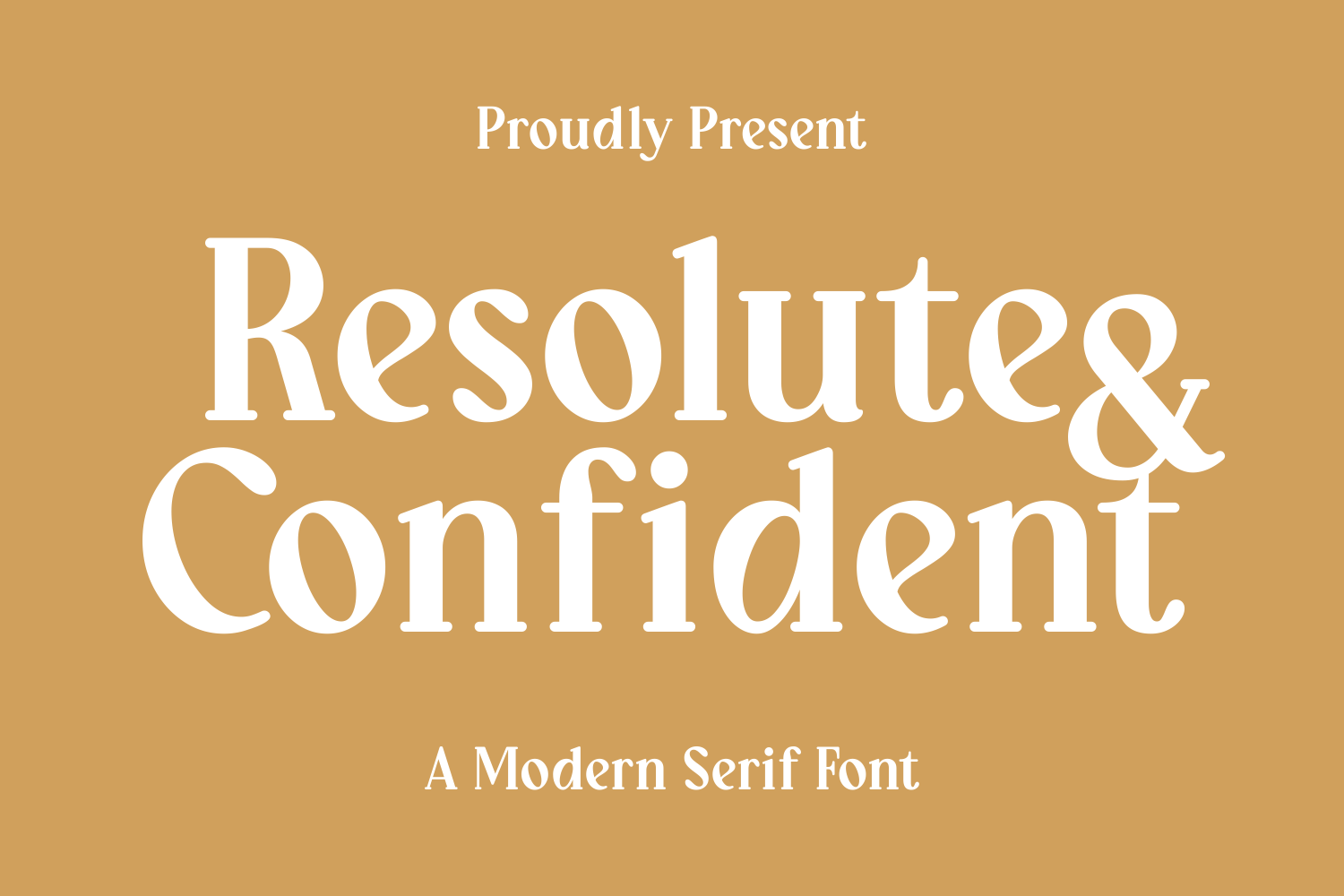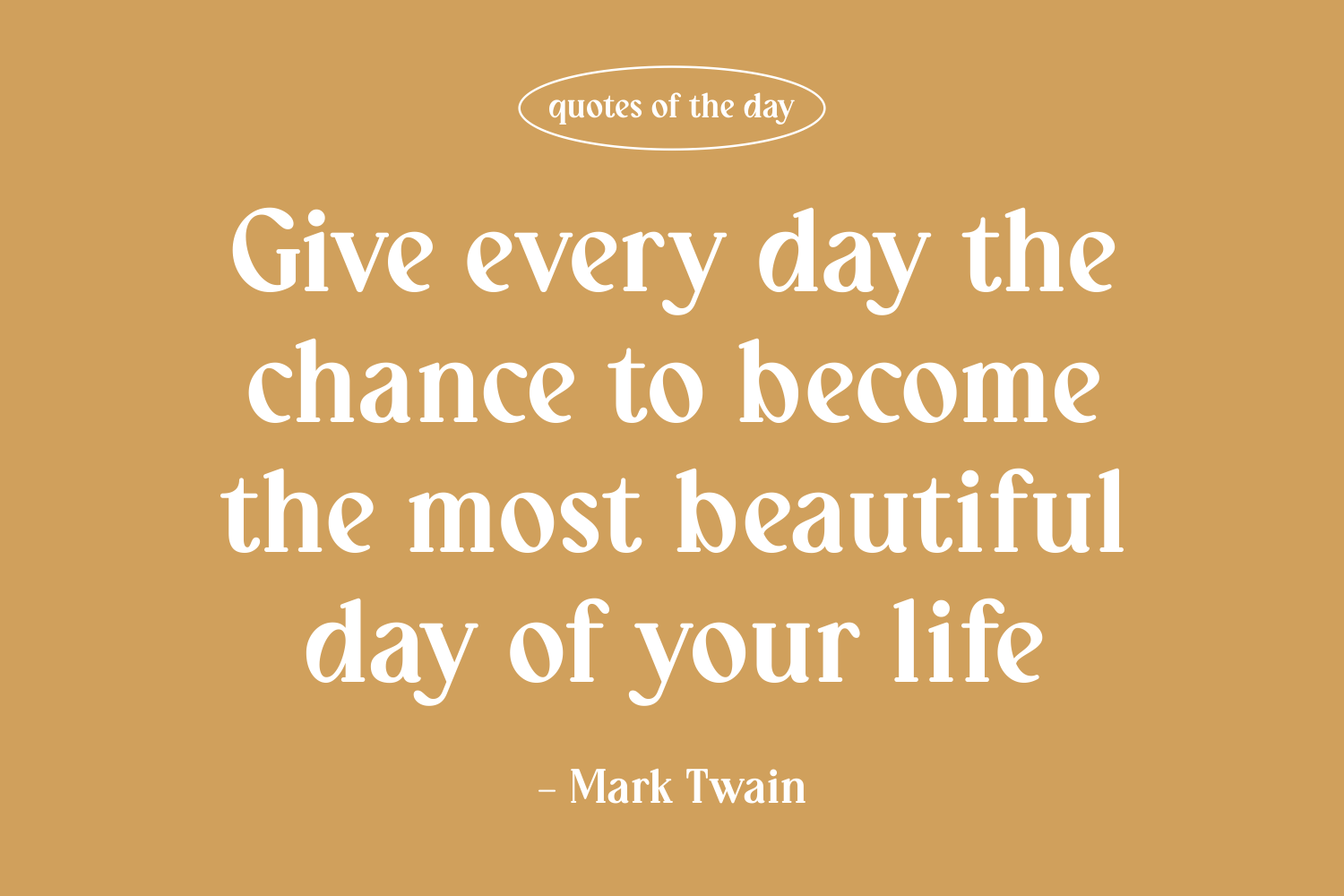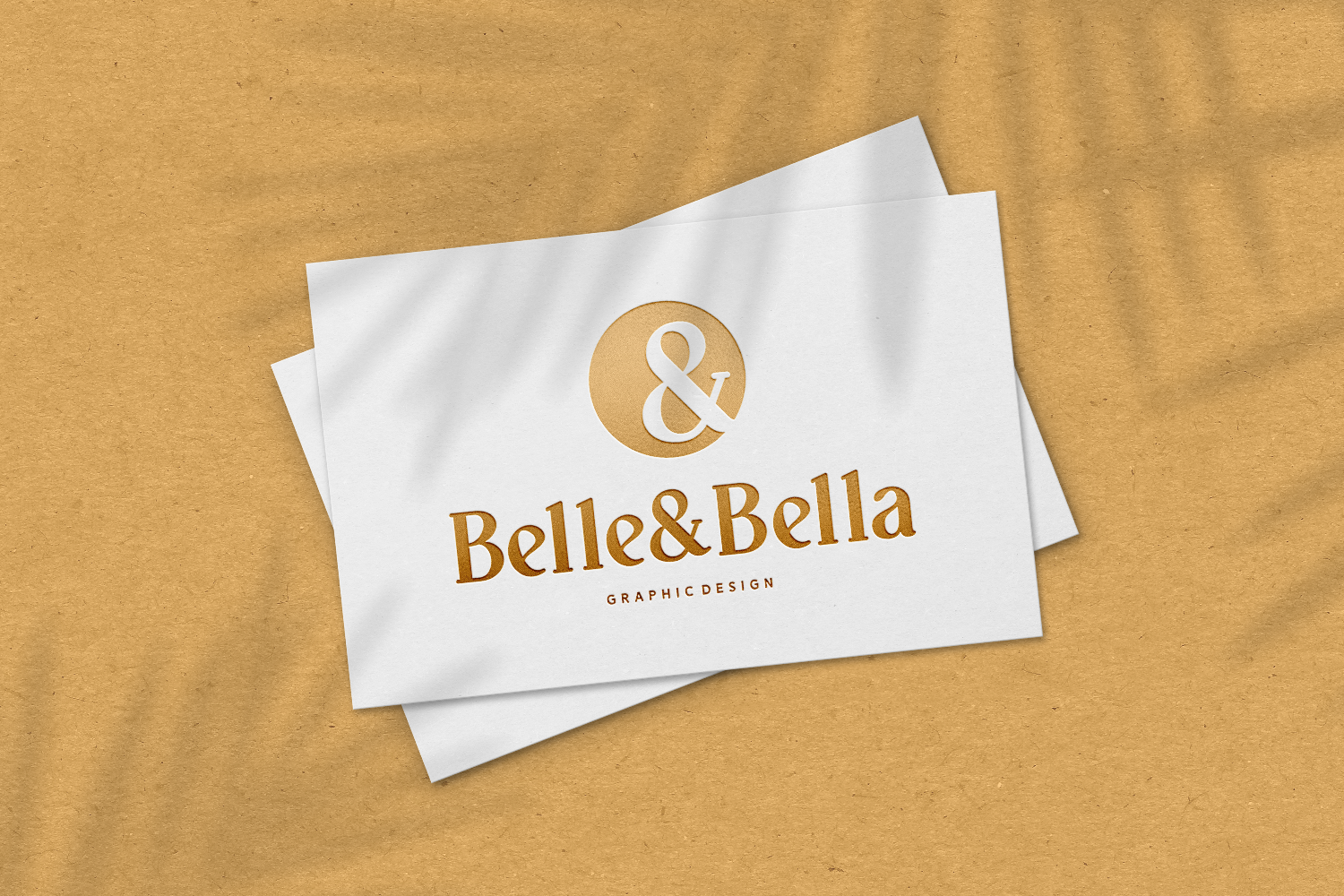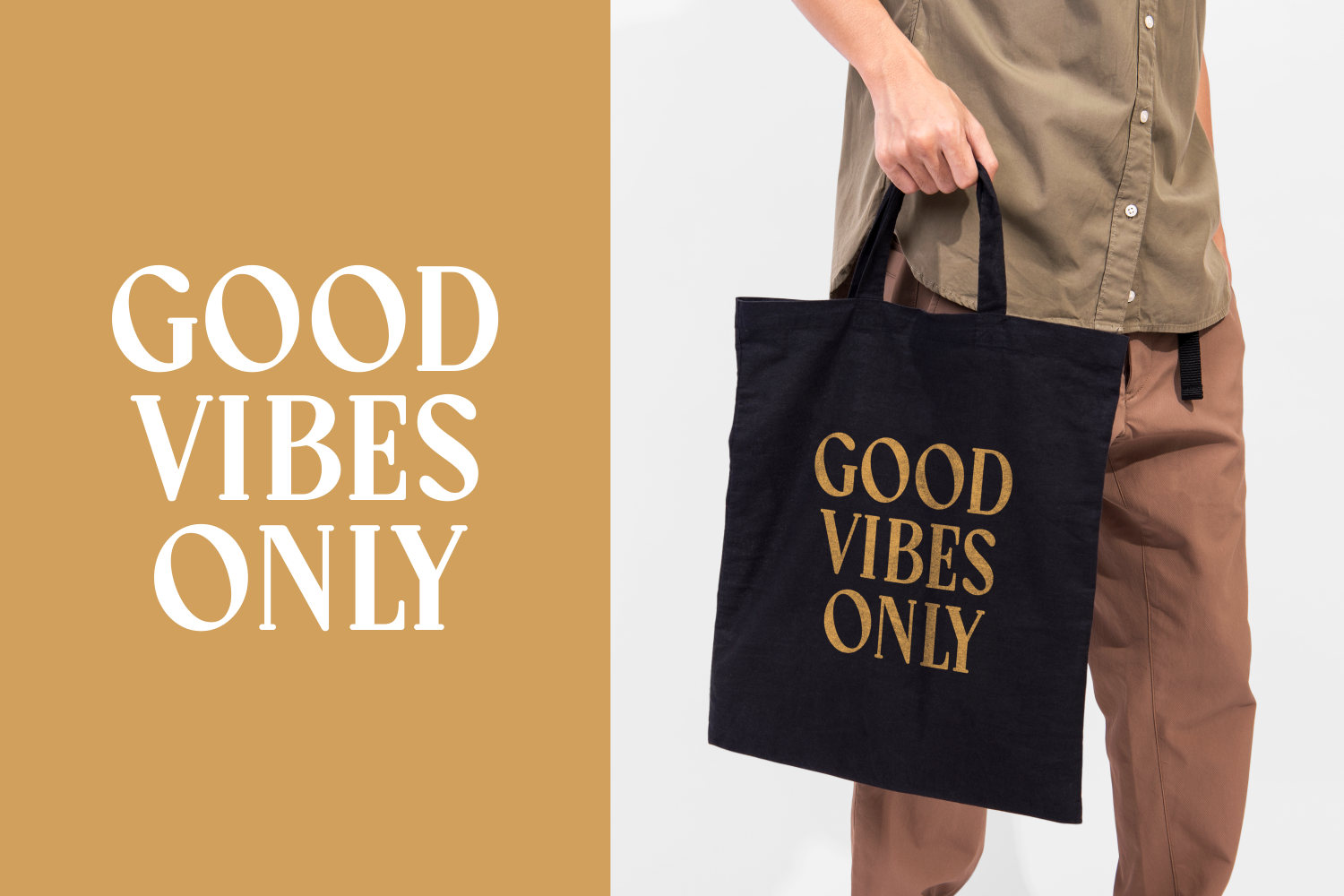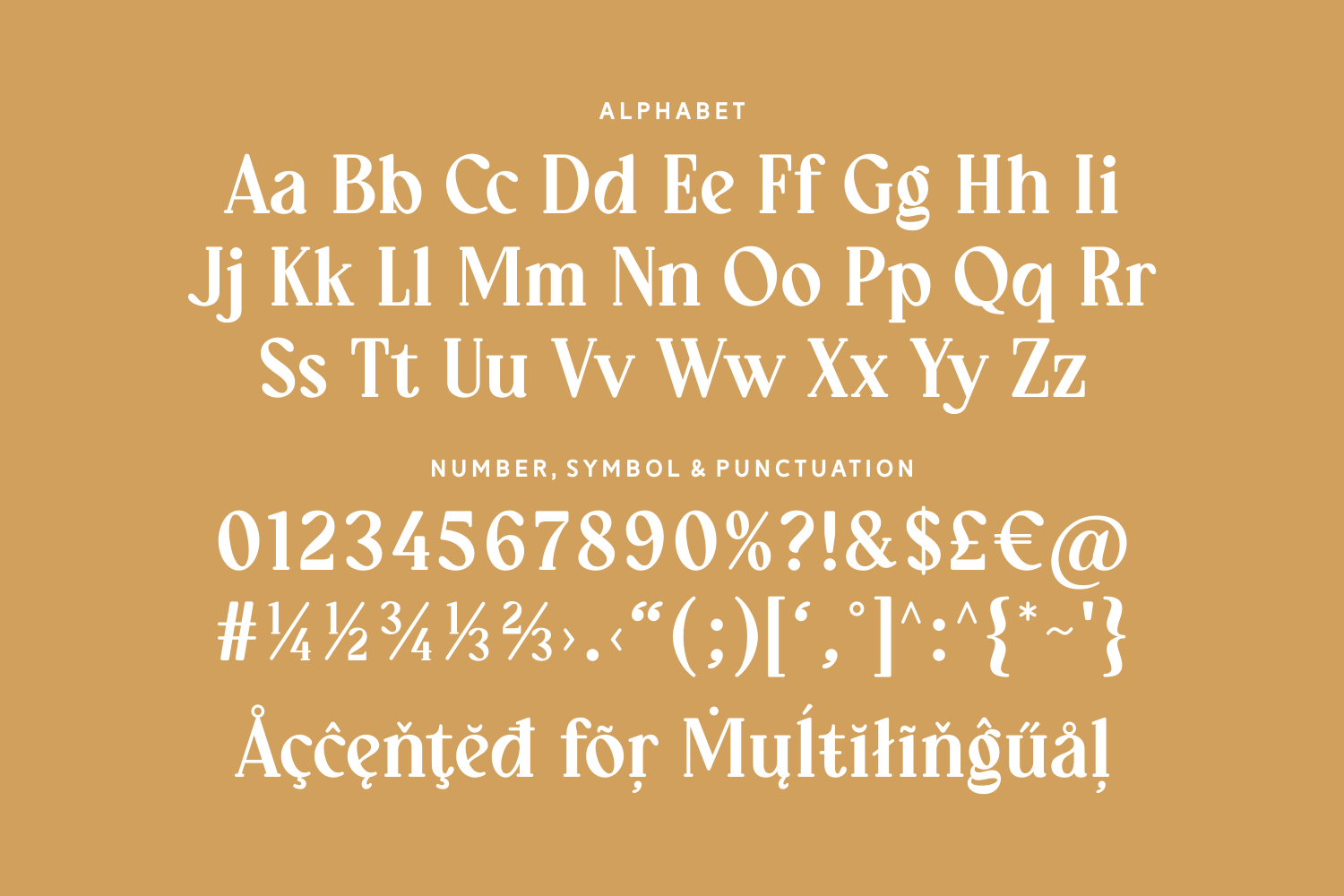
Resolute & Confident is a modern serif font that radiates authority and poise. Its sharp, curved terminals and subtle contrast give it a confident yet approachable look—ideal for motivational messaging, editorial use, lifestyle branding, or any design that needs to exude trust and clarity. A powerful blend of modern structure and personality.